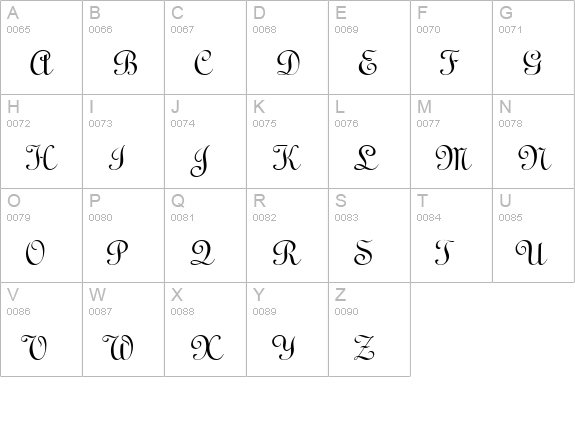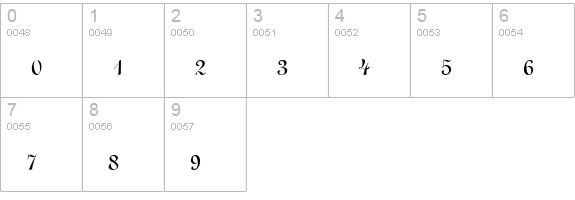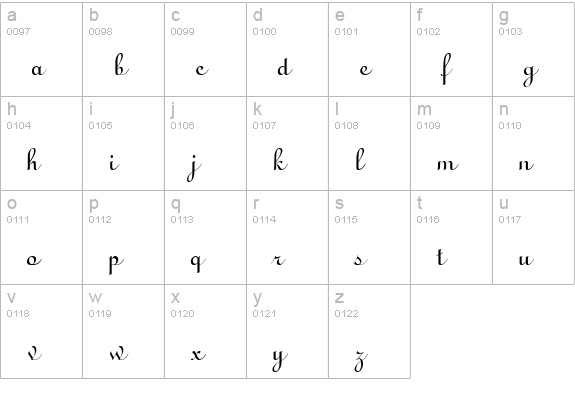
TR Linus Plain Font Details
TR Linus Plain is a versatile and elegant font that exudes simplicity and sophistication. Its clean lines and timeless design make it perfect for a wide range of projects, from branding to editorial design. With its classic yet modern aesthetic, TR Linus Plain is sure to make your text stand out with its effortless charm. The best part? TR Linus Plain is completely free to download at FontsMarket.com. Now you can elevate your design projects without breaking the bank. Don't miss out on this opportunity to enhance your work with a beautiful and stylish font that will never go out of style. Download TR Linus Plain today and let your creativity shine!